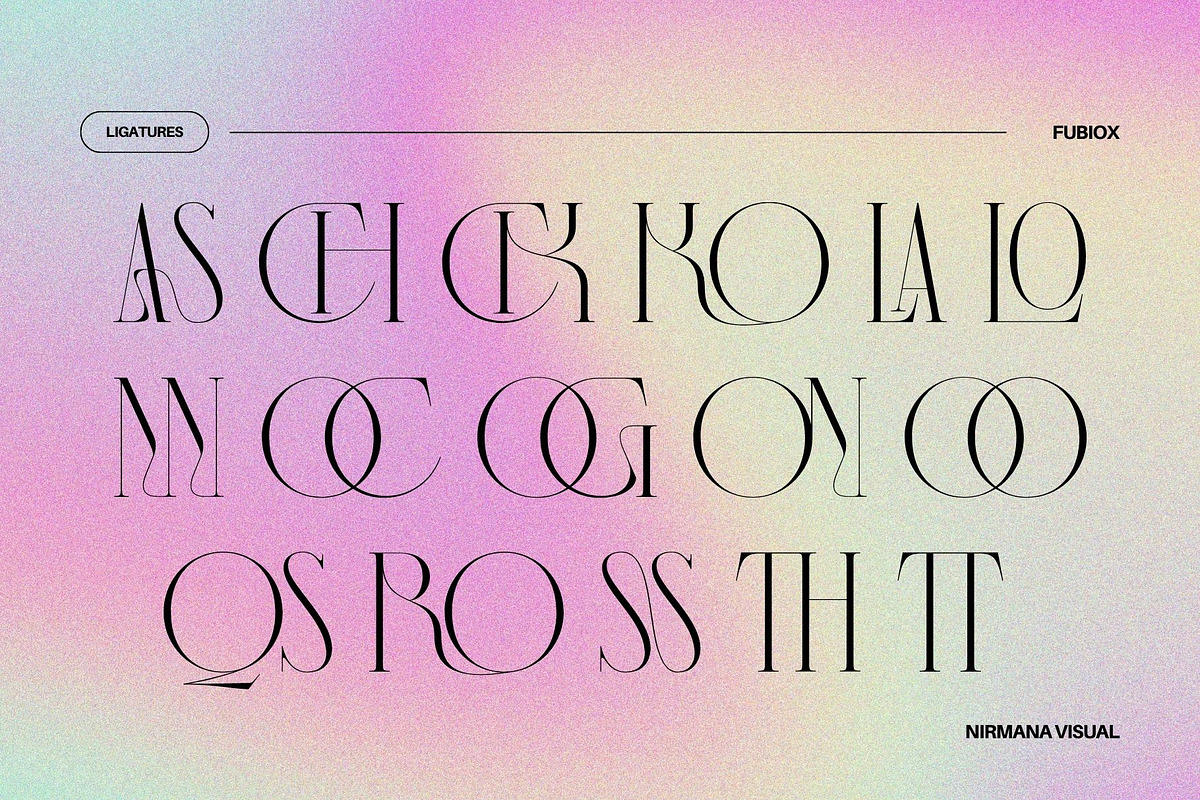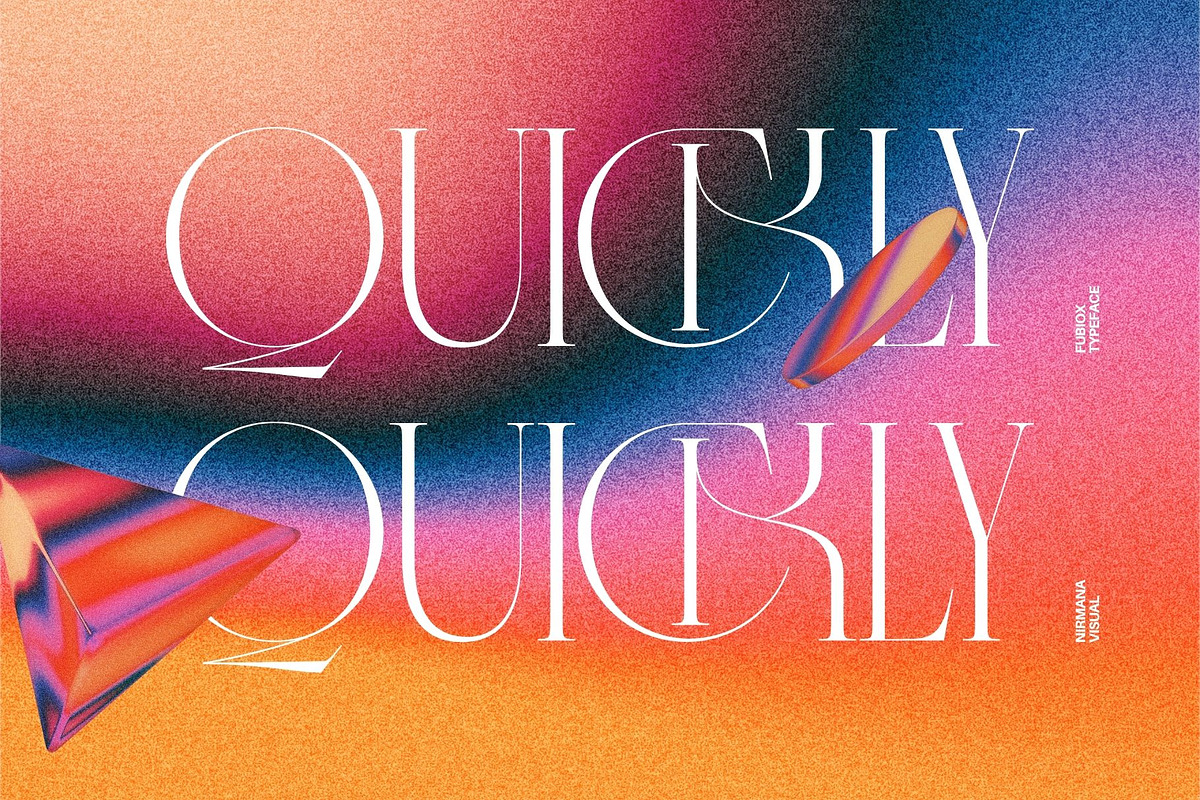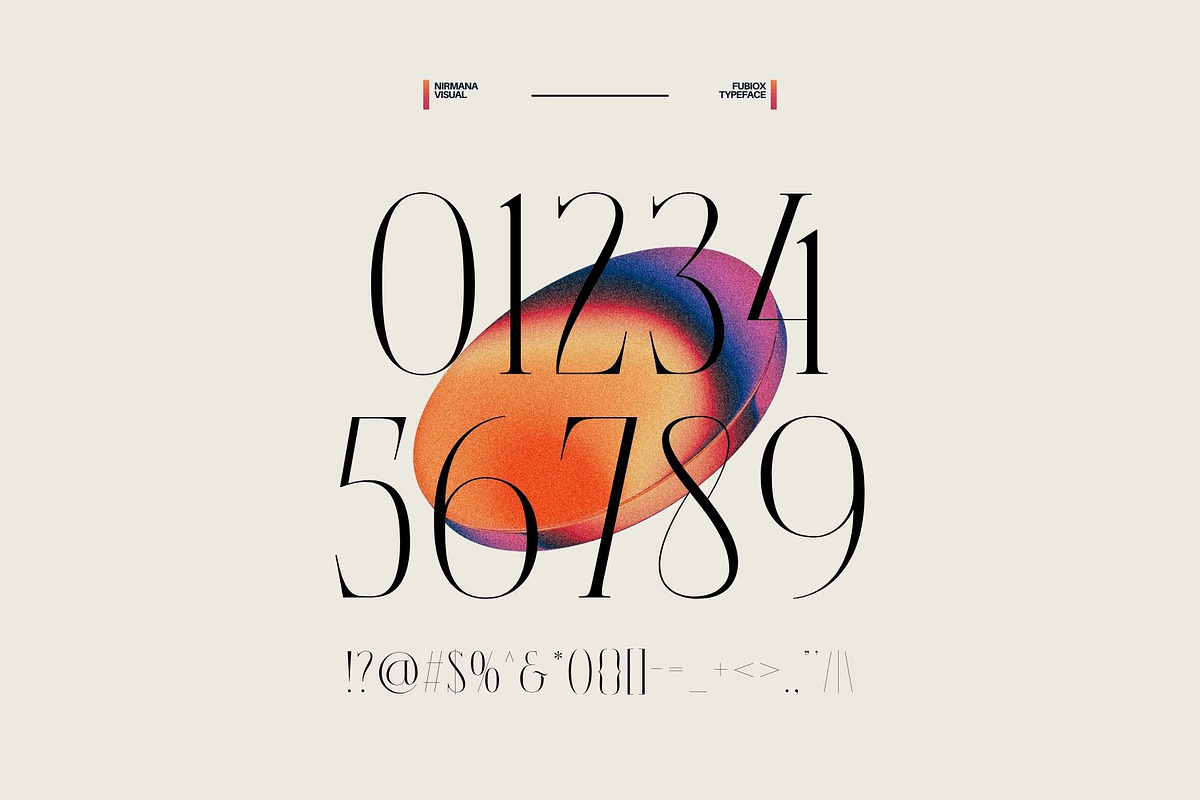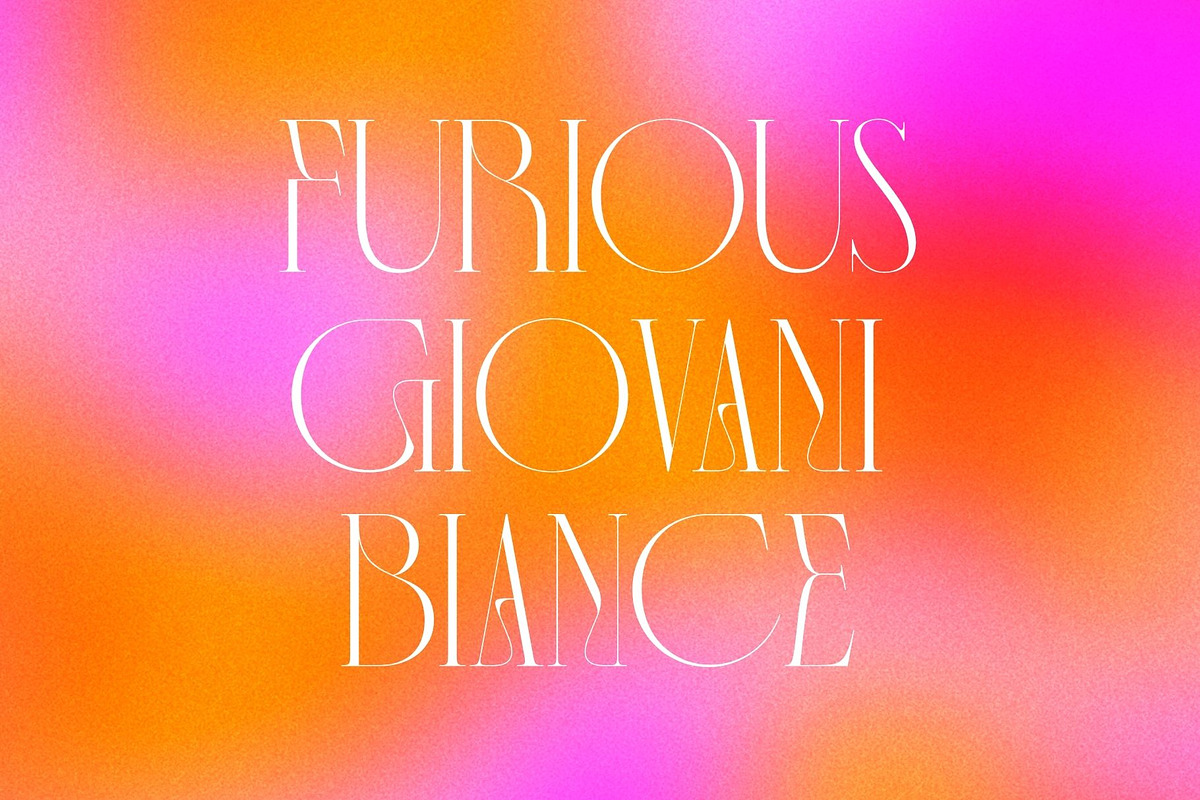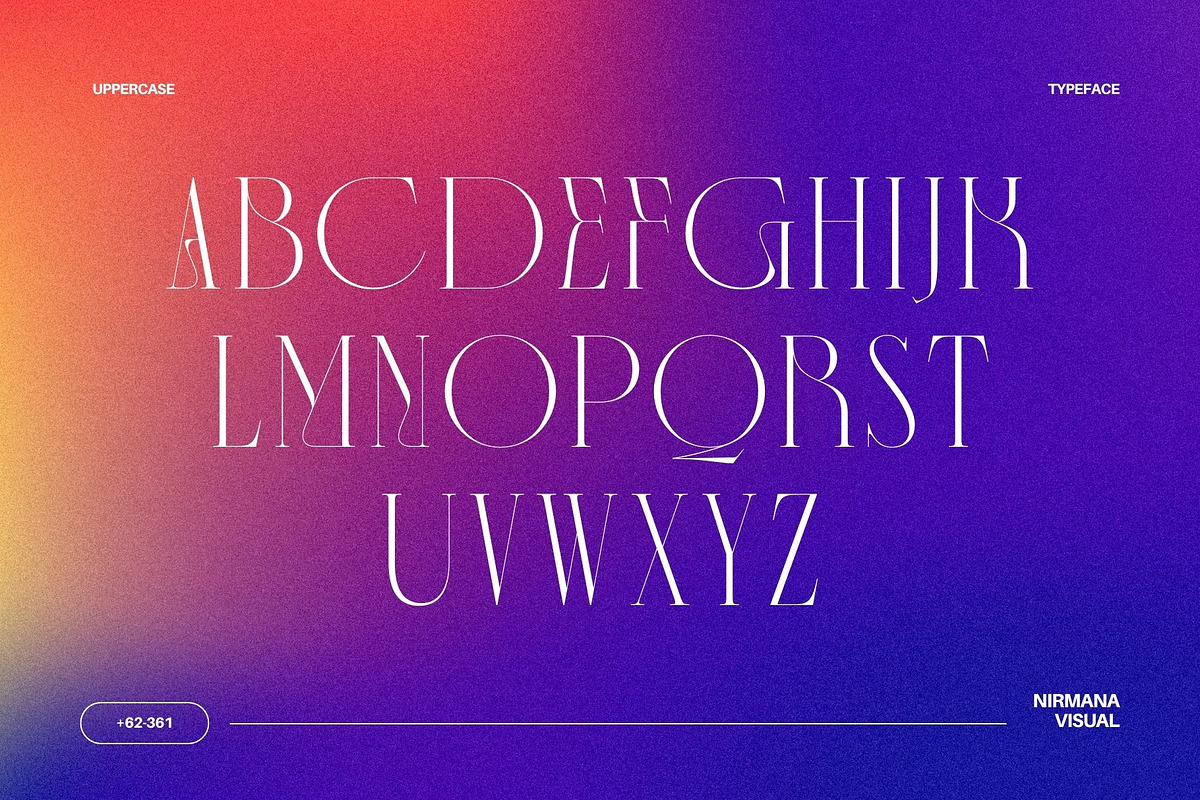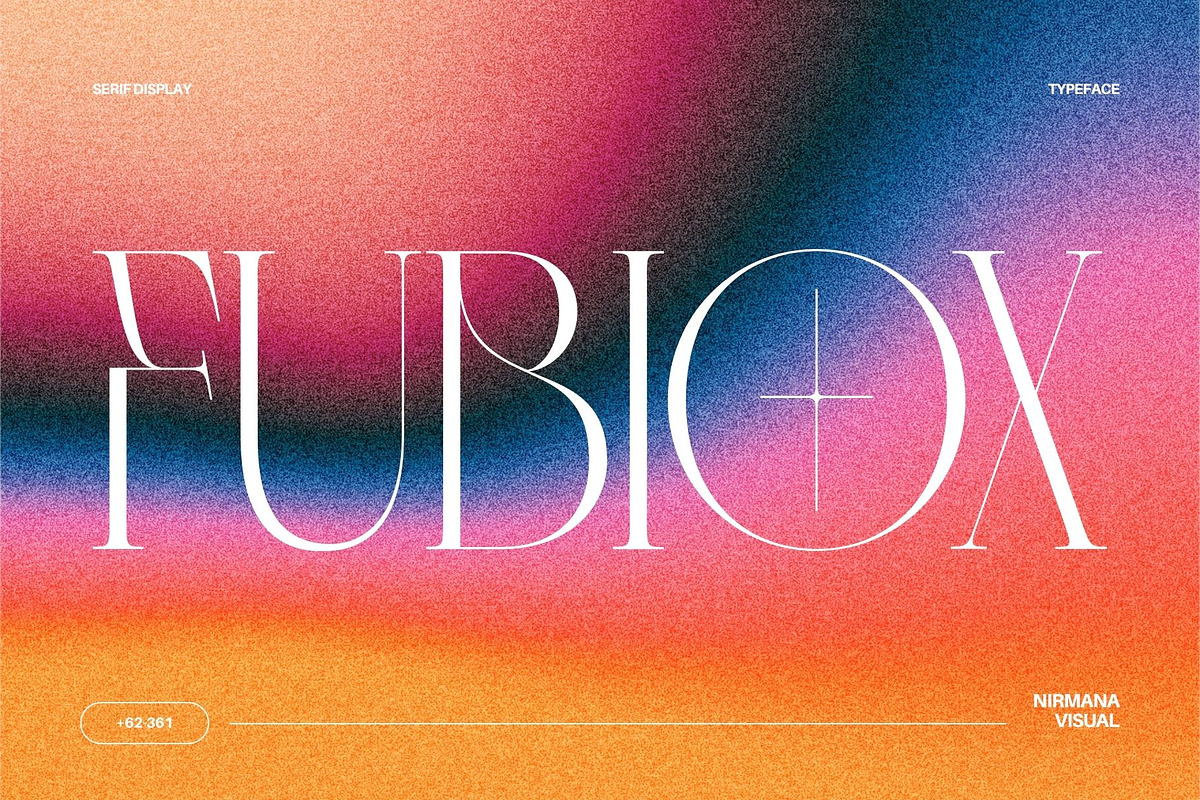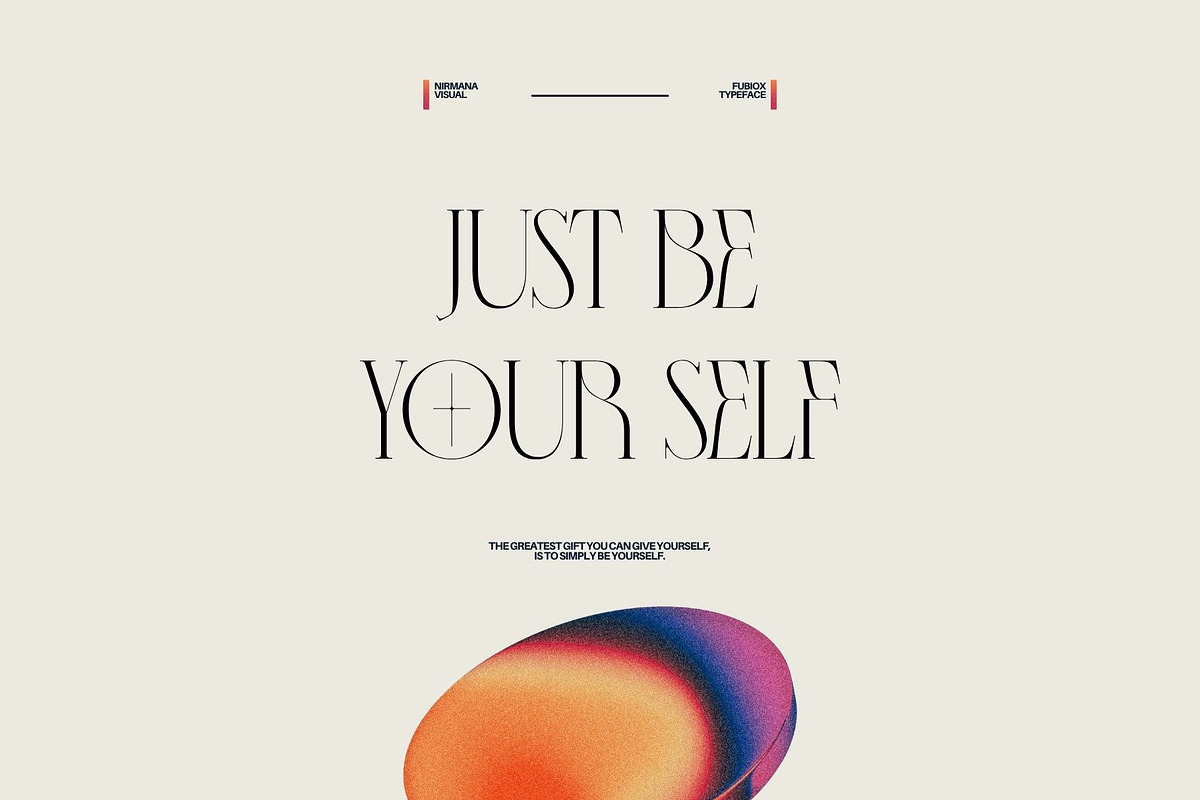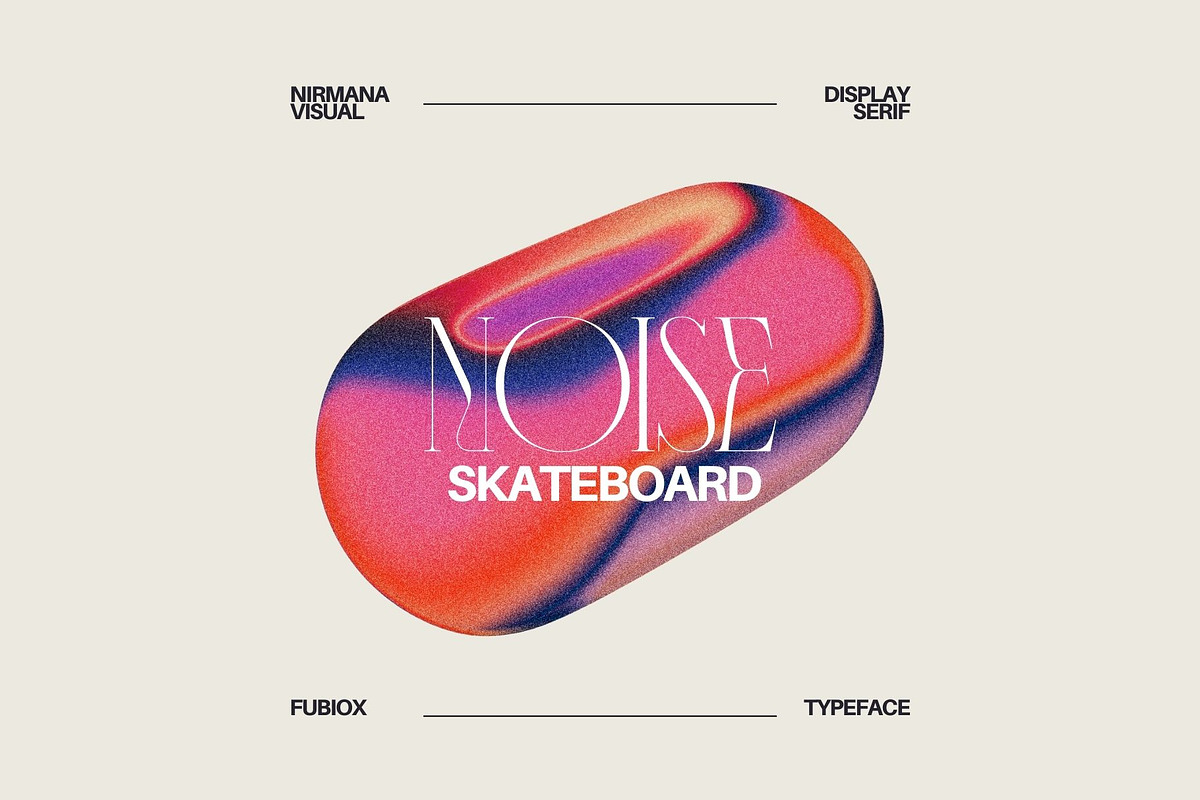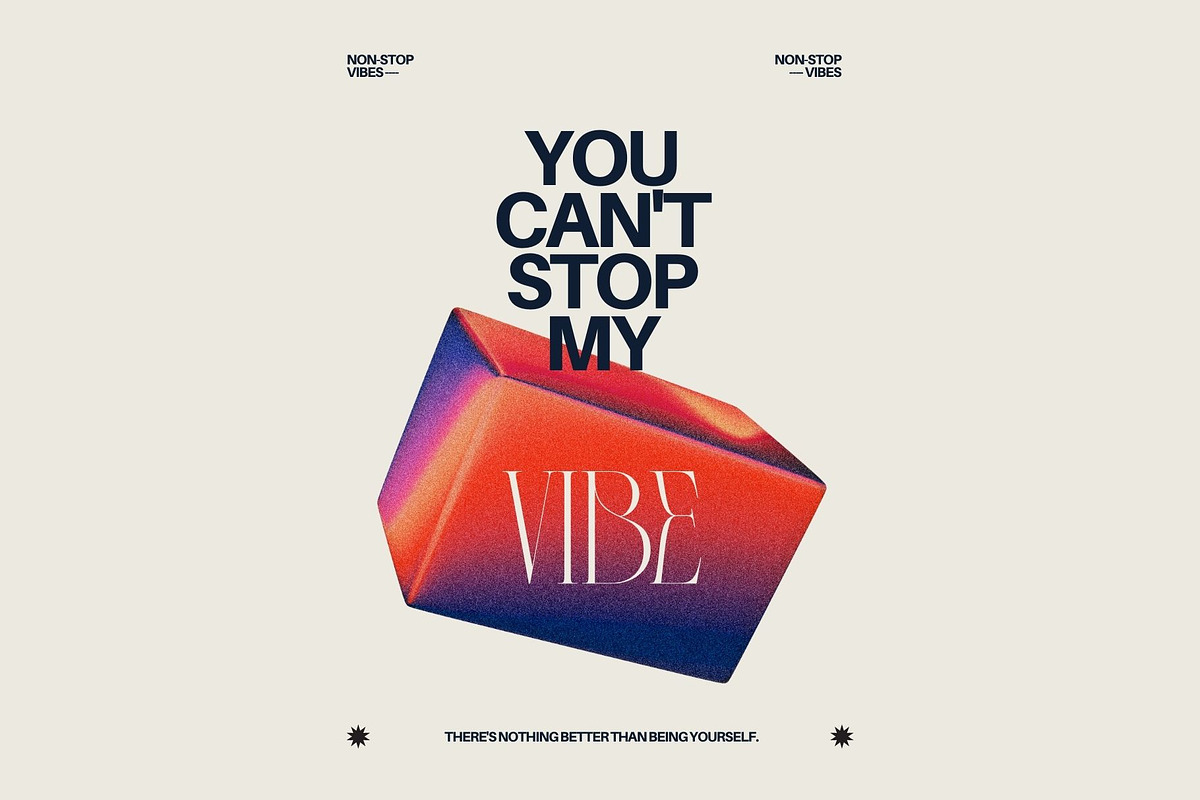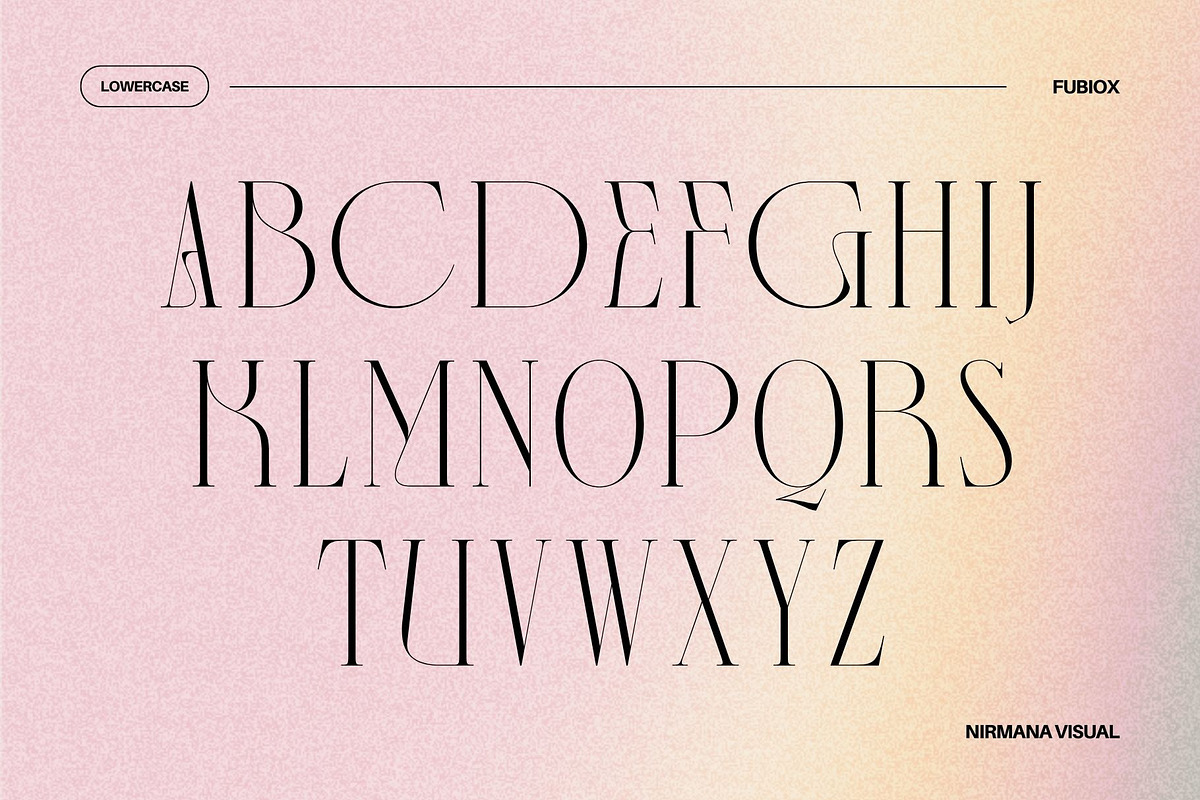
Fubiox - Display Serif
Fubiox - Creative Font
Fubiox offers beautiful typographic harmony for a diversity of design projects, including logos & branding, social media posts, advertisements & product designs.